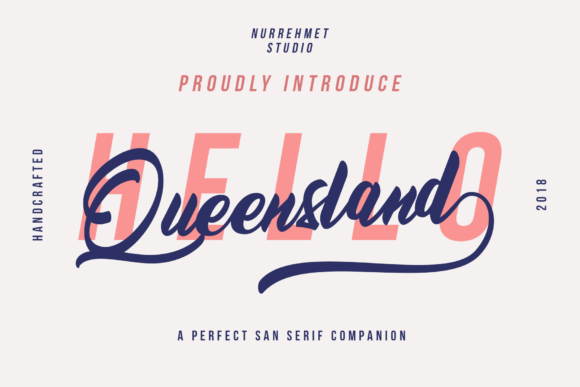
**Introducing Queensland Font: Unleash the Power of Enchanting Script**
Step into a world of boundless creativity with Queensland Font, a captivating display font crafted by the visionary Nurrehmet Studio. This exquisite script exudes a bold and modern flair, ready to elevate your designs to extraordinary heights.
Queensland Font invites you to paint your words with a touch of drama and flair. Its meticulously crafted characters dance across the page, captivating the eyes and igniting imaginations. With its remarkable versatility, Queensland Font effortlessly adapts to a myriad of design realms, from sporty themes to captivating logotypes, poignant quotes, and striking word marks.
**Immerse Yourself in a Symphony of OpenType Features**
Indulge in a world of typographic possibilities with Queensland Font's arsenal of OpenType features. Unleash your creativity with stylistic alternates that offer endless variations, giving your designs a unique and captivating touch. Contextual alternates seamlessly adjust to surrounding characters, ensuring harmonious and visually pleasing text.
But that's not all! Queensland Font empowers you with an array of swashes, providing an elegant and expressive way to accentuate your words. Elevate your designs with breathtaking ligatures that effortlessly connect characters, creating a cohesive and visually stunning flow.
**Tailored to Inspire, Designed to Captivate**
Queensland Font is meticulously designed to ignite inspiration and captivate audiences. Its bold strokes and dynamic curves evoke a sense of energy and modernity, making it an ideal choice for dynamic branding, vibrant headlines, and eye-catching posters.
But its charm extends beyond the realm of the ordinary. Queensland Font effortlessly adds a touch of sophistication to wedding invitations, imbues poetry with a heartfelt touch, and transforms social media graphics into captivating works of art.
**Embark on a Typographic Adventure**
With Queensland Font, the possibilities are limitless. It's an open invitation to explore a world of creative expression, where your designs take center stage and leave an unforgettable impression. Whether you're a seasoned designer or just starting your typographic journey, Queensland Font is your trusted companion, guiding you towards captivating and unforgettable designs.